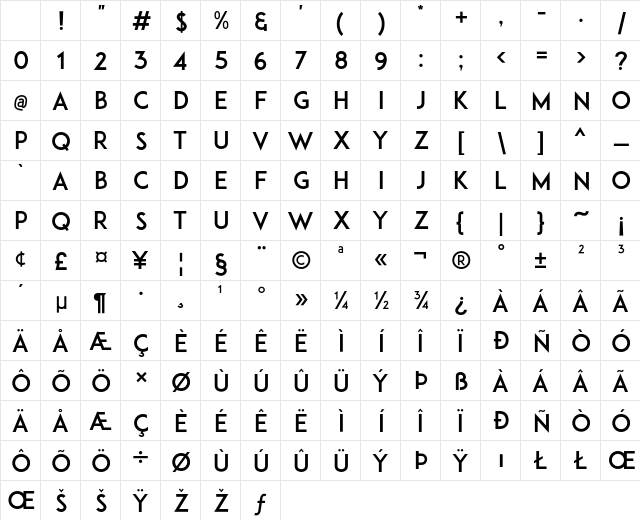
Complete ADAM.CG PRO Regular glyph index. Displaying only characters natively supported by ADAM.CG PRO Regular font.
ADAM.CG PRO is a composed and adaptable typeface that performs quietly and consistently across a wide range of design contexts.